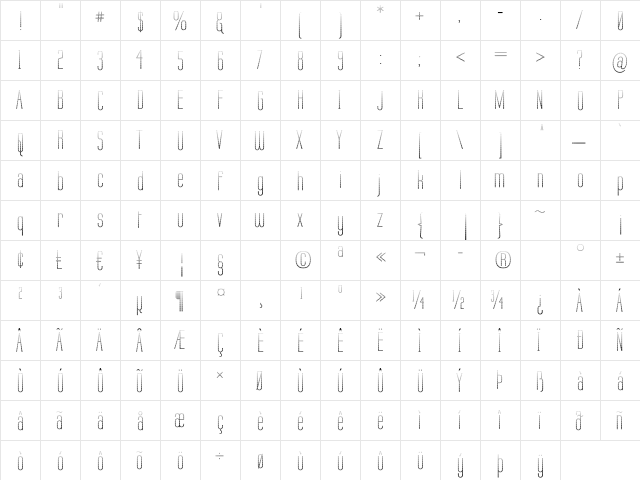
Labtop Graphed Regular
Design Context for Labtop Graphed Typeface
Labtop Graphed is a composed and adaptable typeface that performs quietly and consistently across a wide range of design contexts.